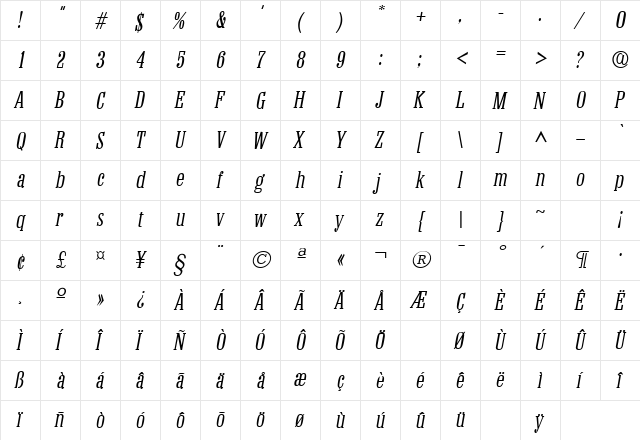
ColonelL Italic
Design Context for ColonelL Typeface
ColonelL is a composed and adaptable typeface that performs quietly and consistently across a wide range of design contexts. The dynamic lean of this cut emphasises speed and emphasis in any layout.
Pro Tip: Try ColonelL for annotation and caption copy alongside an upright companion — the contrast in angle creates a dynamic but ordered typographic system.